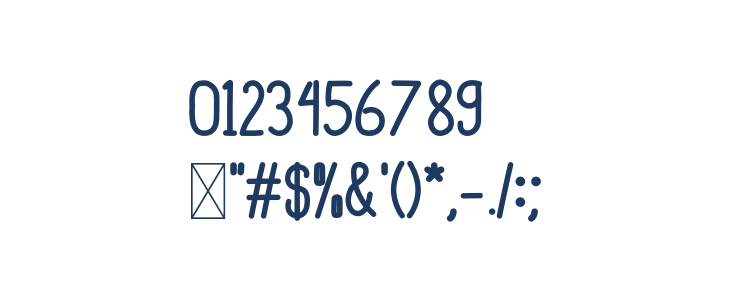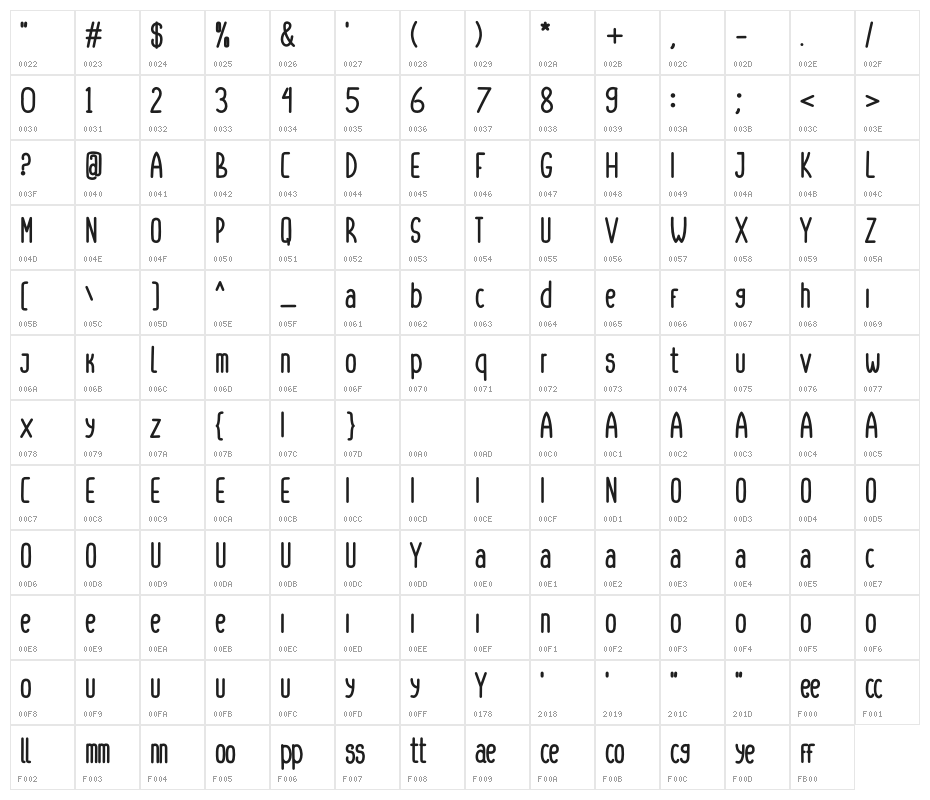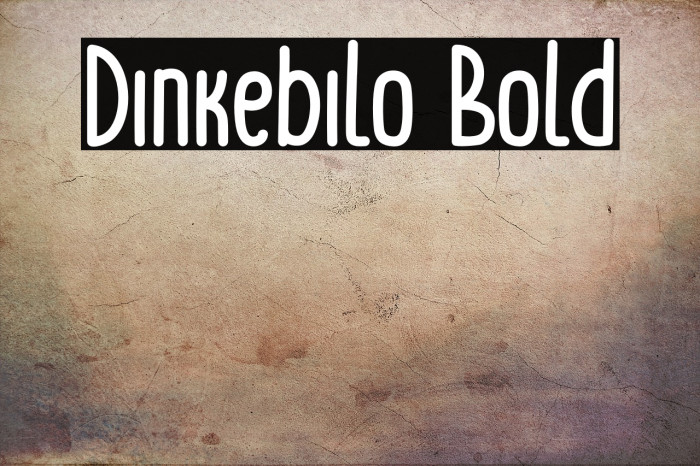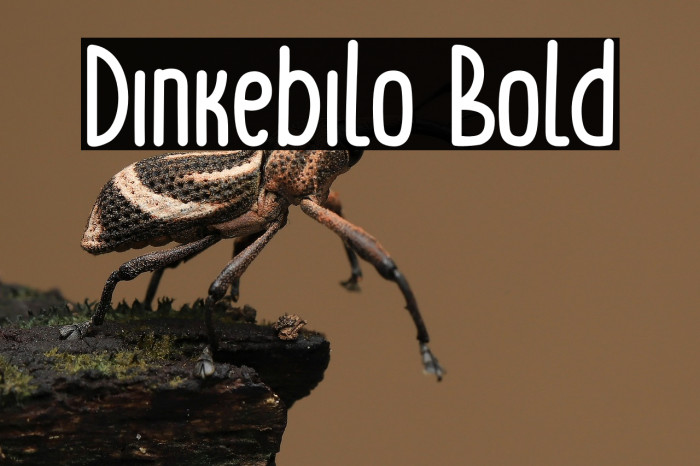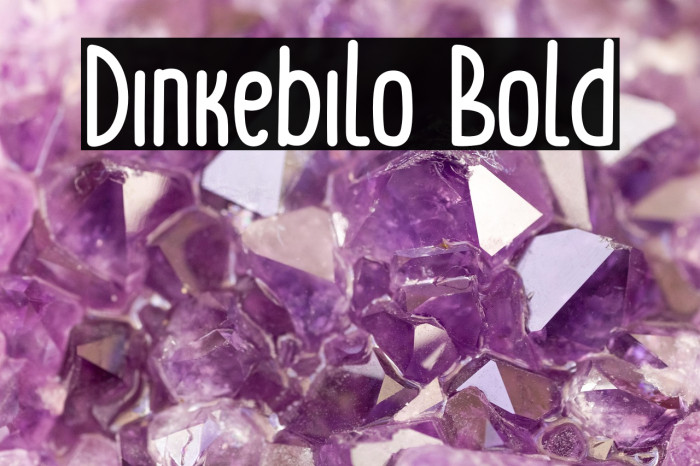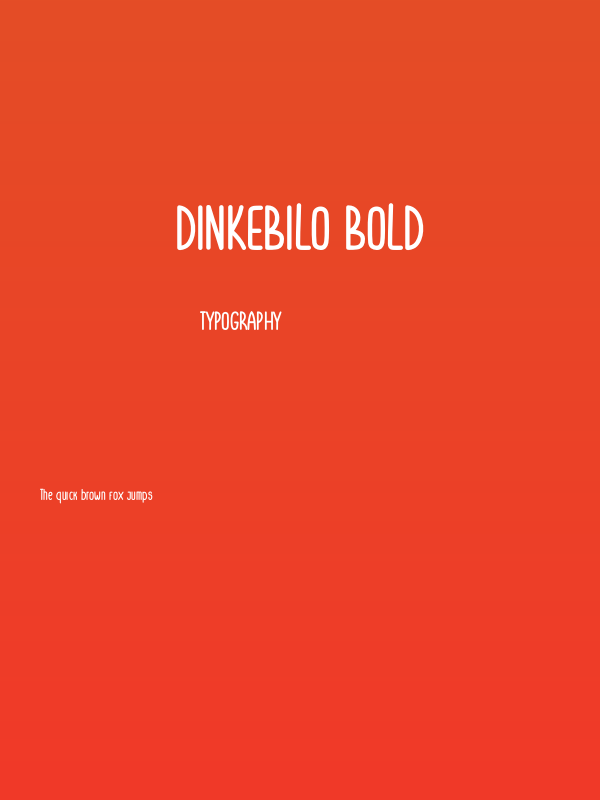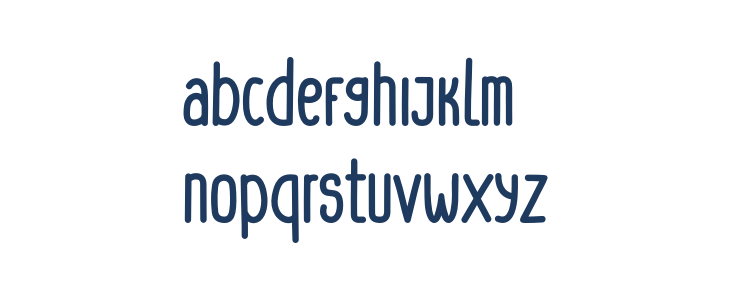
Dinkebilo Bold Font
Dinkebilo Bold Description
This font features a bold and playful design with rounded edges and a slightly condensed form. The characters are uniformly thick, giving it a consistent and cohesive appearance. The uppercase letters are tall and narrow, while the lowercase letters maintain a similar width, creating a harmonious balance. The numerals are clear and legible, matching the style of the alphabet. Special characters are distinct and well-integrated into the overall design. This font's friendly and approachable style makes it suitable for a variety of creative projects.
| Proposed Projects | Ideal for children's books, playful branding, posters, and greeting cards. |